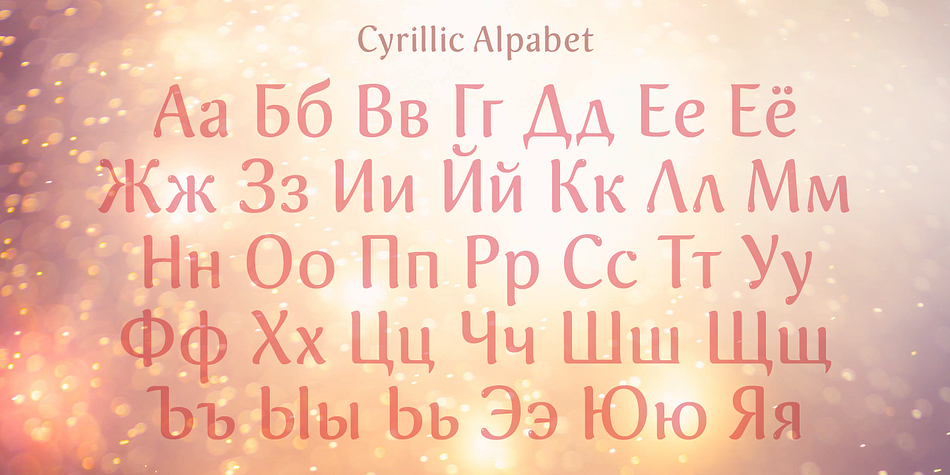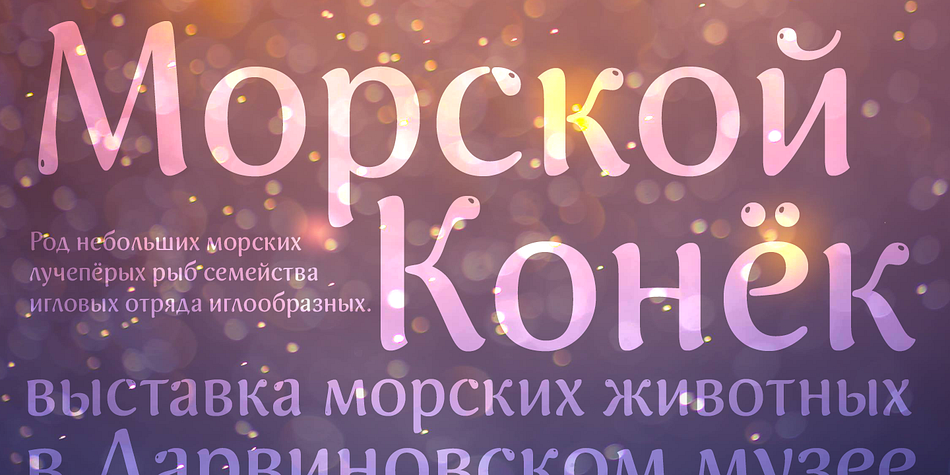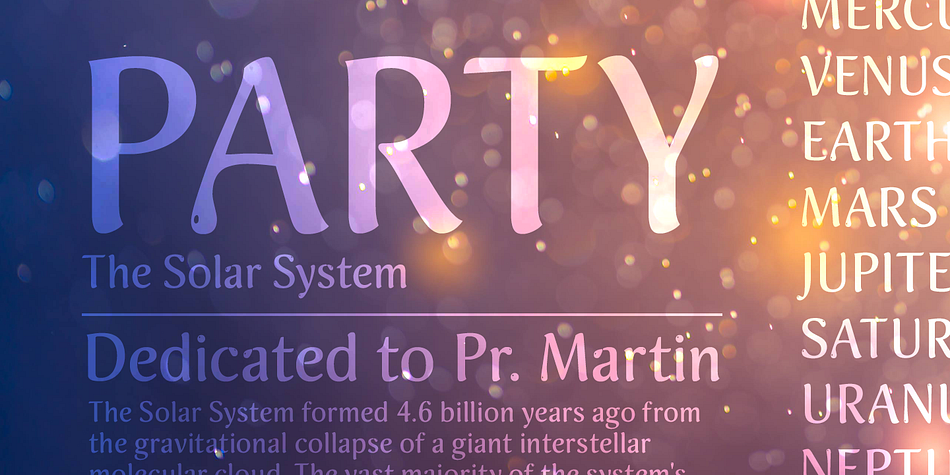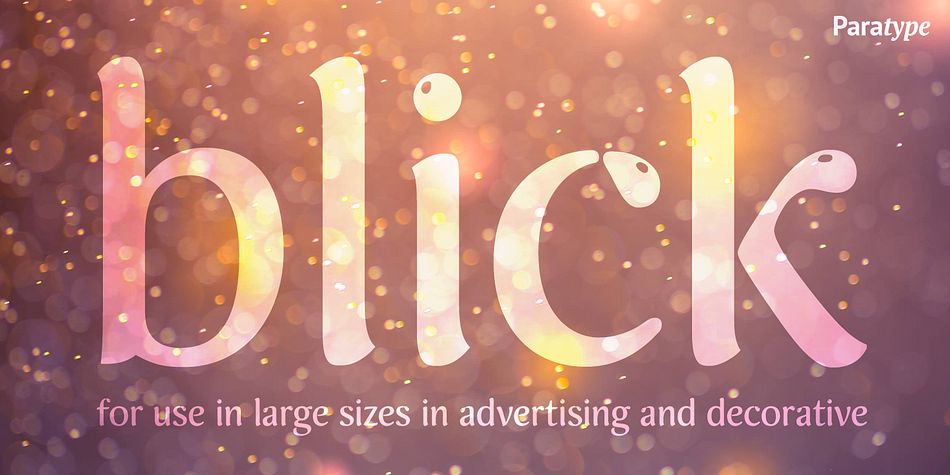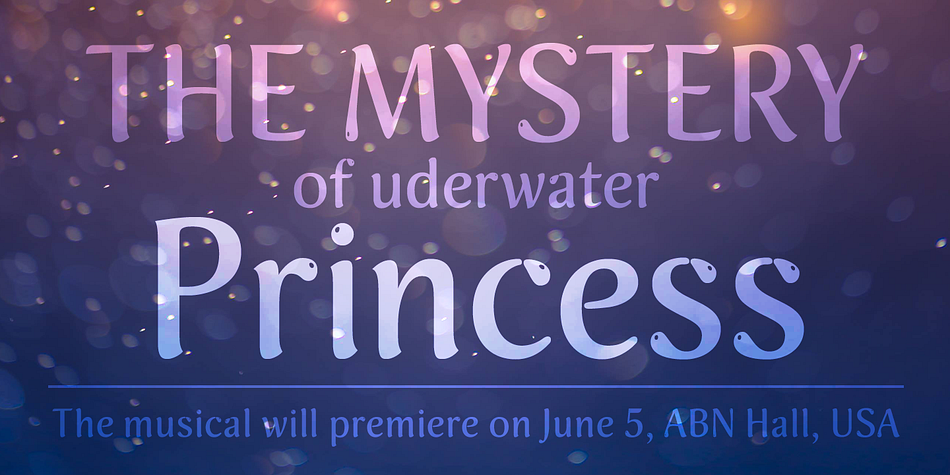
Designed by Natalia Vasilyeva, Blick is a brush display font published by ParaType.
A display face with rounded terminals stylized like drops of a liquid. For use in large sizes in advertising matter and decorative headings. The face designed by Natalya Vasilyeva and licensed by ParaType in 2007.
Style | Brush Display |
Designer | Natalia Vasilyeva |